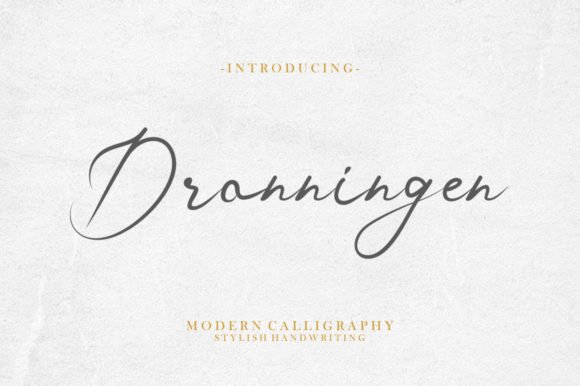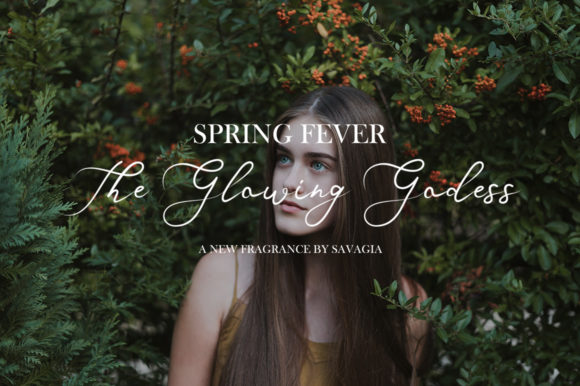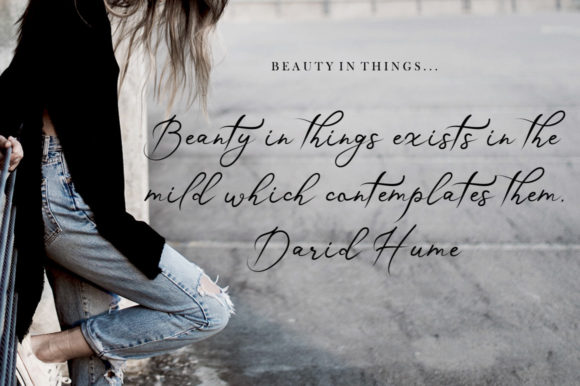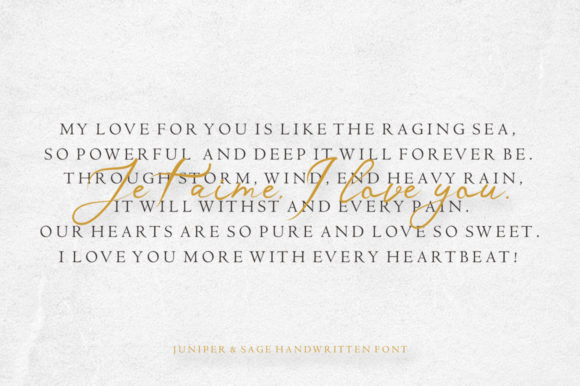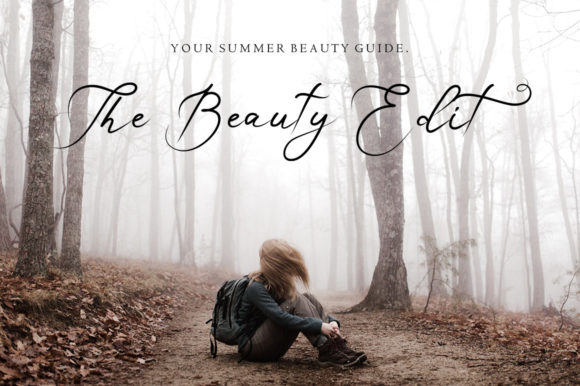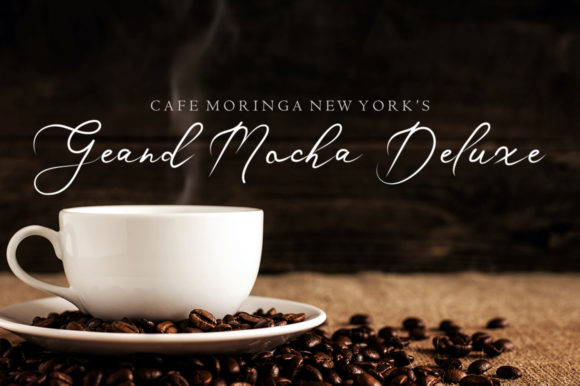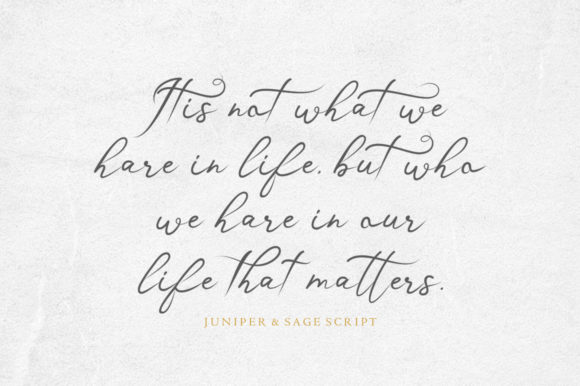
The Perfect Signature: Unlocking the Magic of Dronningen Signature Font
As a designer, there’s no better feeling than seeing your client’s brand come to life on paper. The perfect combination of typography, color, and texture can elevate a design from ordinary to extraordinary. It’s in these moments that we remember why we fell in love with design in the first place – the thrill of creating something beautiful and meaningful.
Enter the Dronningen Signature Font, a stunning organic handwritten font that’s perfect for branding, signatures, wedding invitations, and more. This modern and simple font is sure to make a statement, while its unique character still shines through. As a designer, you’ll love the flexibility and customization options that come with the PUA-encoded font, making it easy to access all the glyphs and swashes you need to create truly unique designs.
Dronningen Signature Font Key Features
- Unique Characteristics: Dronningen Signature Font features a unique, elegant design with intricate details and flourishes, making it perfect for formal and professional applications.
- Script and Ligature Support: The font includes a wide range of script and ligature options, allowing for a high level of customization and creativity in typography.
Dronningen Signature Font Review
I recently had the chance to work with Dronningen Signature Font, and I’m excited to share my honest thoughts. Here’s what I think:
- The font’s unique, elegant design makes it perfect for high-end branding and luxury products.
- The bold and light weights provide excellent flexibility for various design applications.
- The font’s versatility shines through in both digital and print formats.
- The font’s intricate details may make it difficult to read at very small sizes.
- The limited language support might be a concern for international designs.
Overall, I think Dronningen Signature Font is a beautiful and sophisticated choice for designers looking to create premium, high-end designs. While it has some limitations, its strengths far outweigh its weaknesses. If you’re looking for a font that exudes luxury and elegance, this one is definitely worth considering.
Tips for Getting the Most Out of the Dronningen Signature Font
To maximize the effectiveness of the Dronningen Signature Font, use it in contexts where elegance and sophistication are key, such as:
- Luxury brand marketing materials
- High-end event signage
Alternatives to Dronningen Signature Font for Designers
Great Vibes is a beautiful, elegant script font that is perfect for adding a touch of sophistication to your designs. It’s great for use in wedding invitations, branding, and other high-end projects. Compared to Dronningen Signature Font, Great Vibes has a more refined and cursive feel, making it ideal for projects that require a high level of elegance.
Carolyna Pro is a modern script font that is perfect for use in branding, packaging, and advertising. It’s great for projects that require a high level of sophistication and elegance, but also have a more modern and trendy feel. Compared to Dronningen Signature Font, Carolyna Pro has a more contemporary and edgy feel, making it ideal for projects that require a bold statement.
Alex Brush is a elegant script font that is perfect for use in branding, packaging, and advertising. It’s great for projects that require a high level of sophistication and elegance, but also have a more personal and handwritten feel. Compared to Dronningen Signature Font, Alex Brush has a more refined and delicate feel, making it ideal for projects that require a high level of sophistication and elegance.